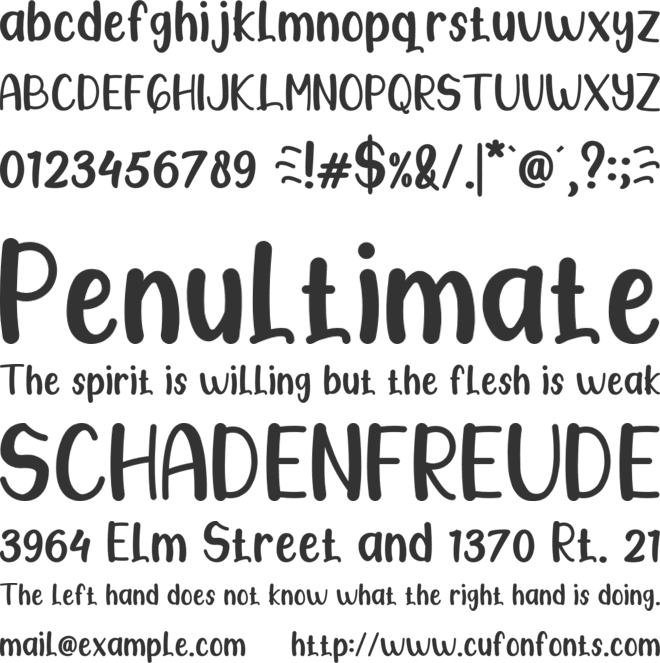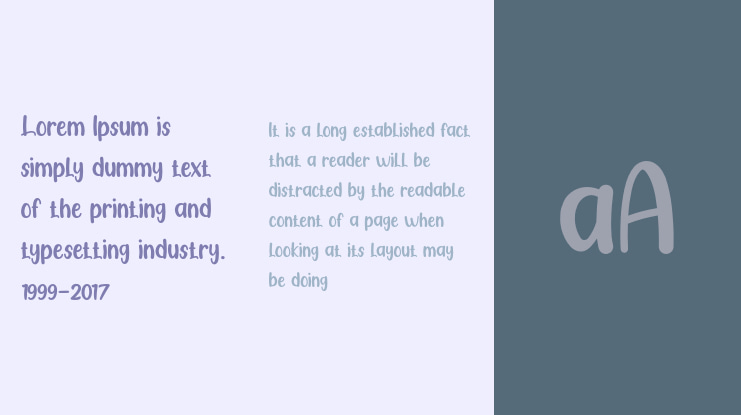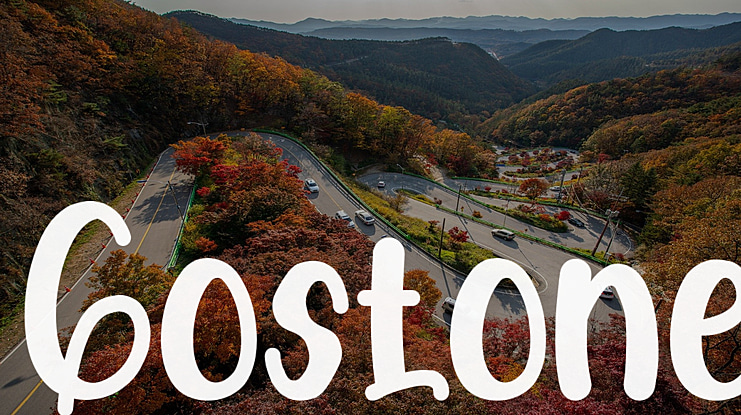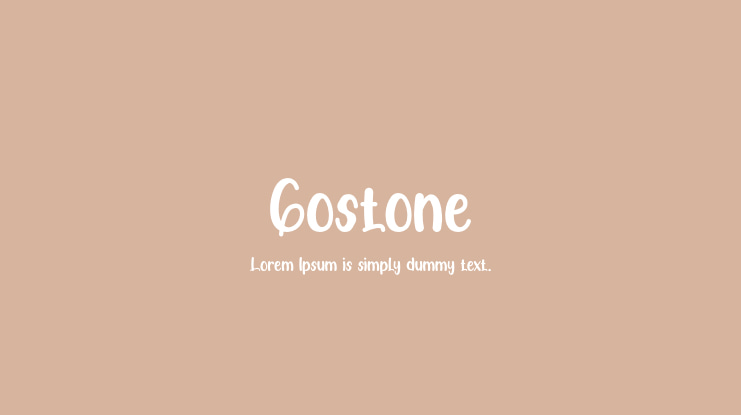
Gostone Font
Introducing our new release, Gostone, A Luxury Display Font. This typeset is perfect for brand logo, invitations, greeting card, or even any kind of project. With multilingual feature and style variations, this typeface would further enhance the aestethical aspect of your work.Visit our website :https://displaytypefont.com/product/gostone/